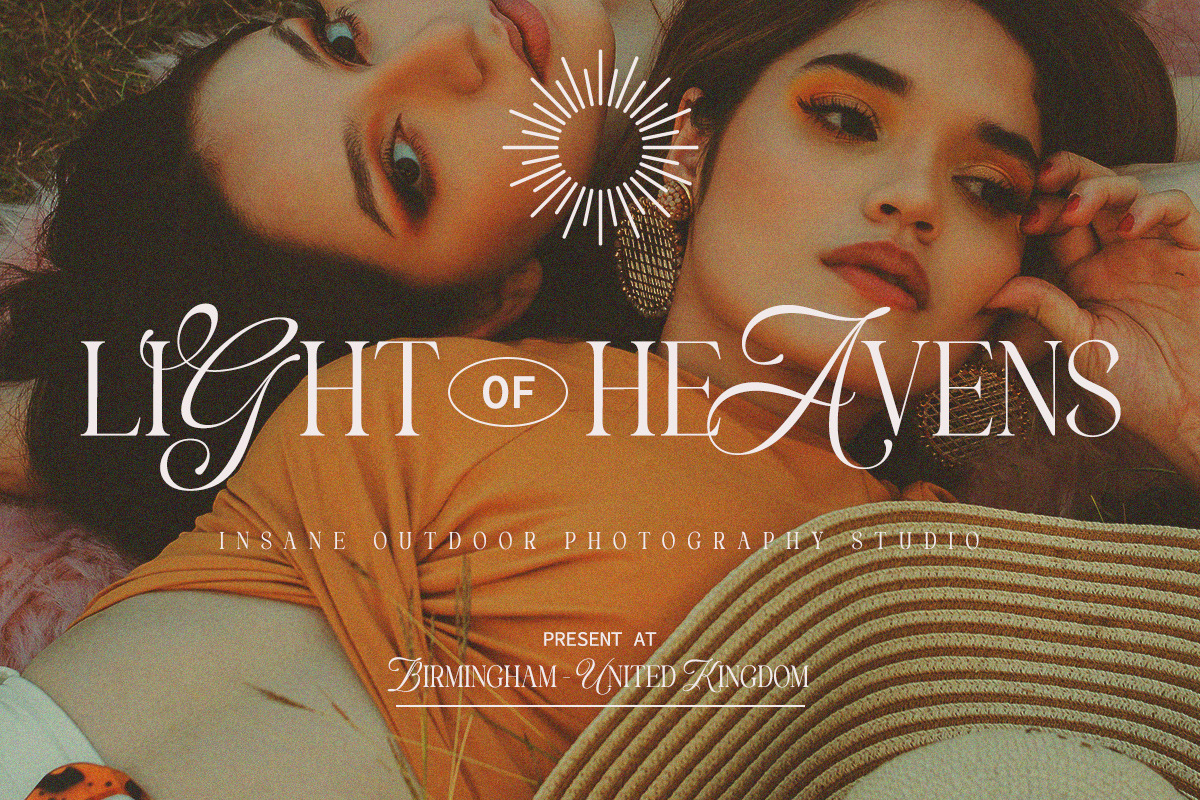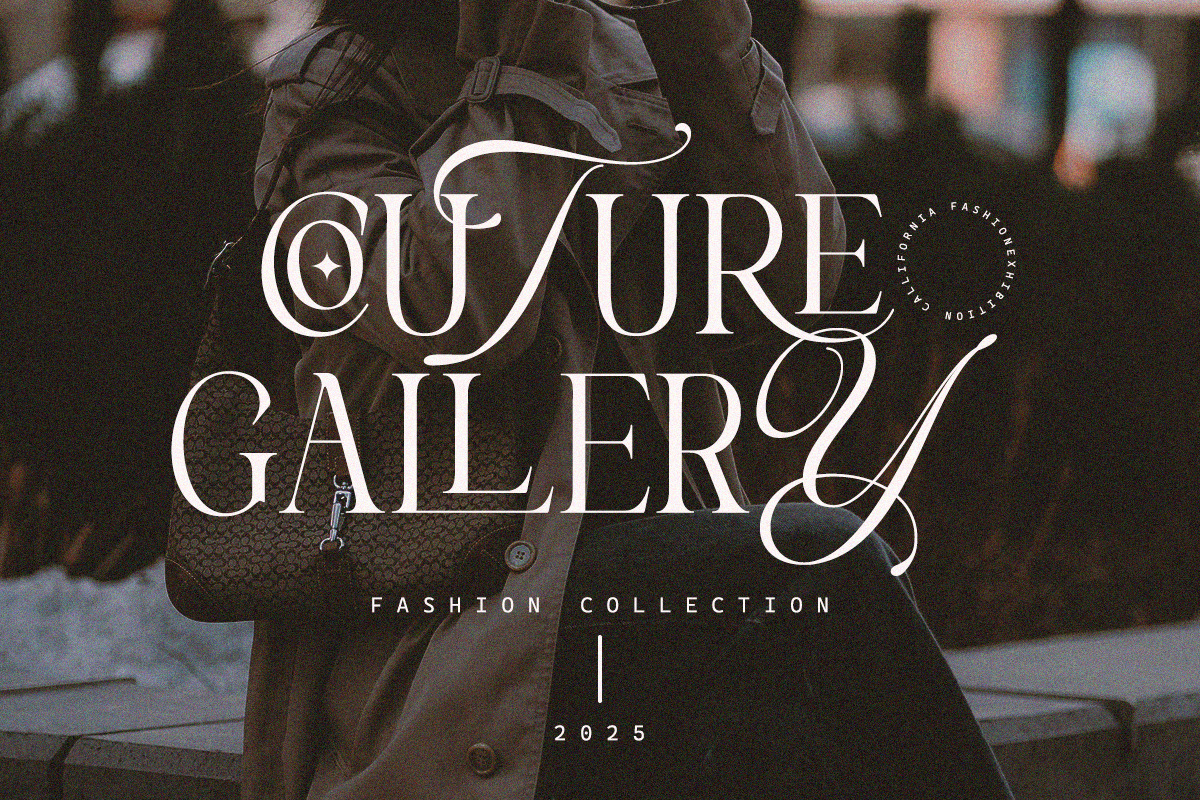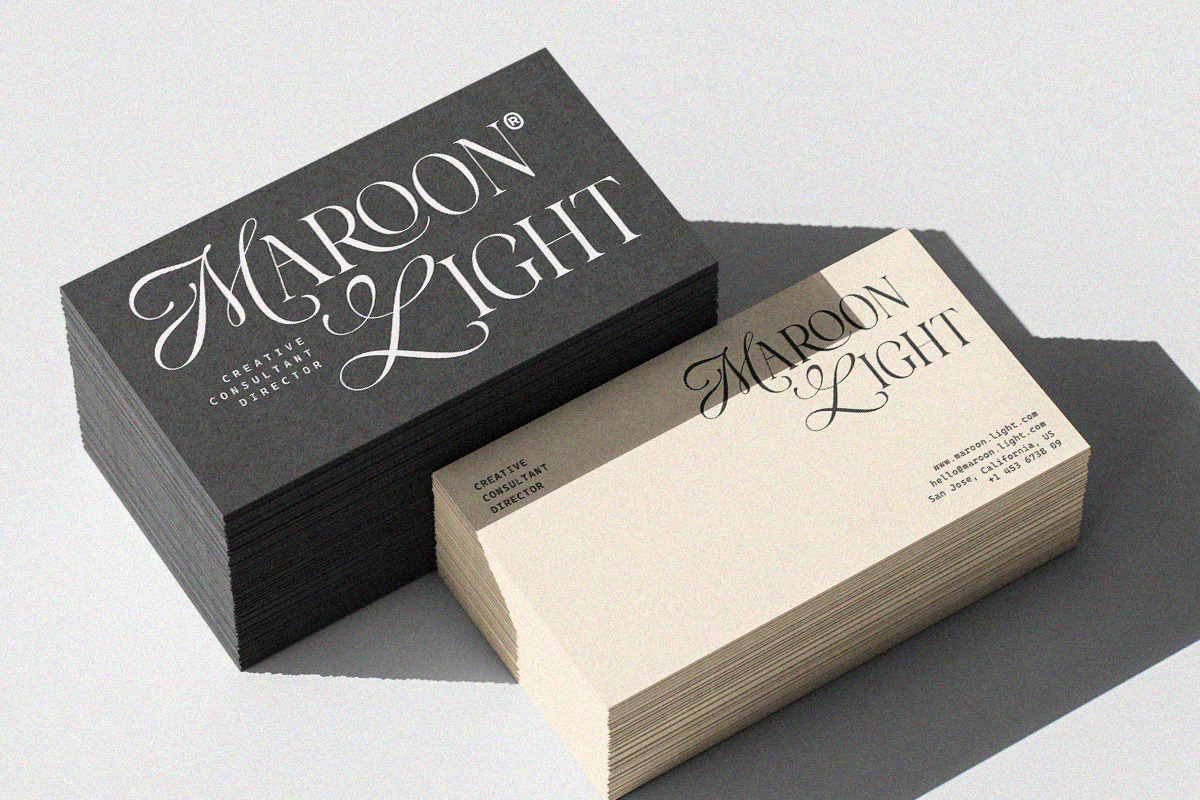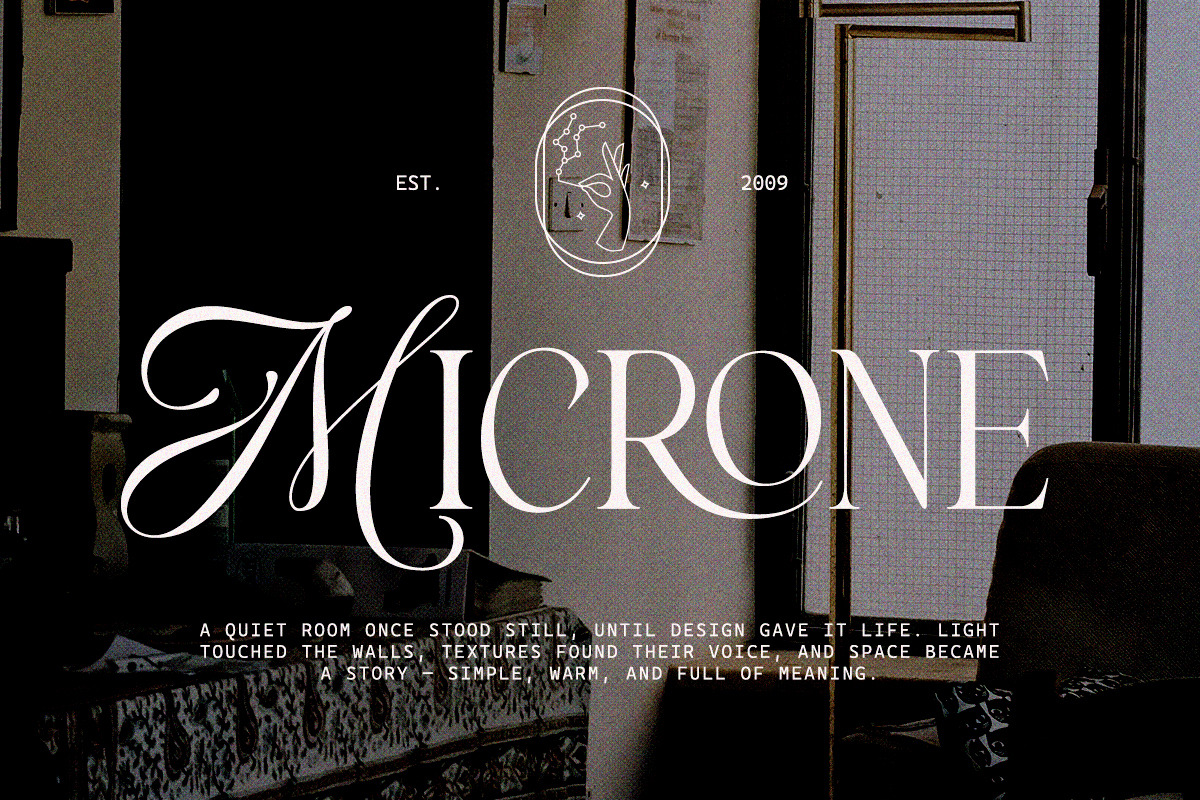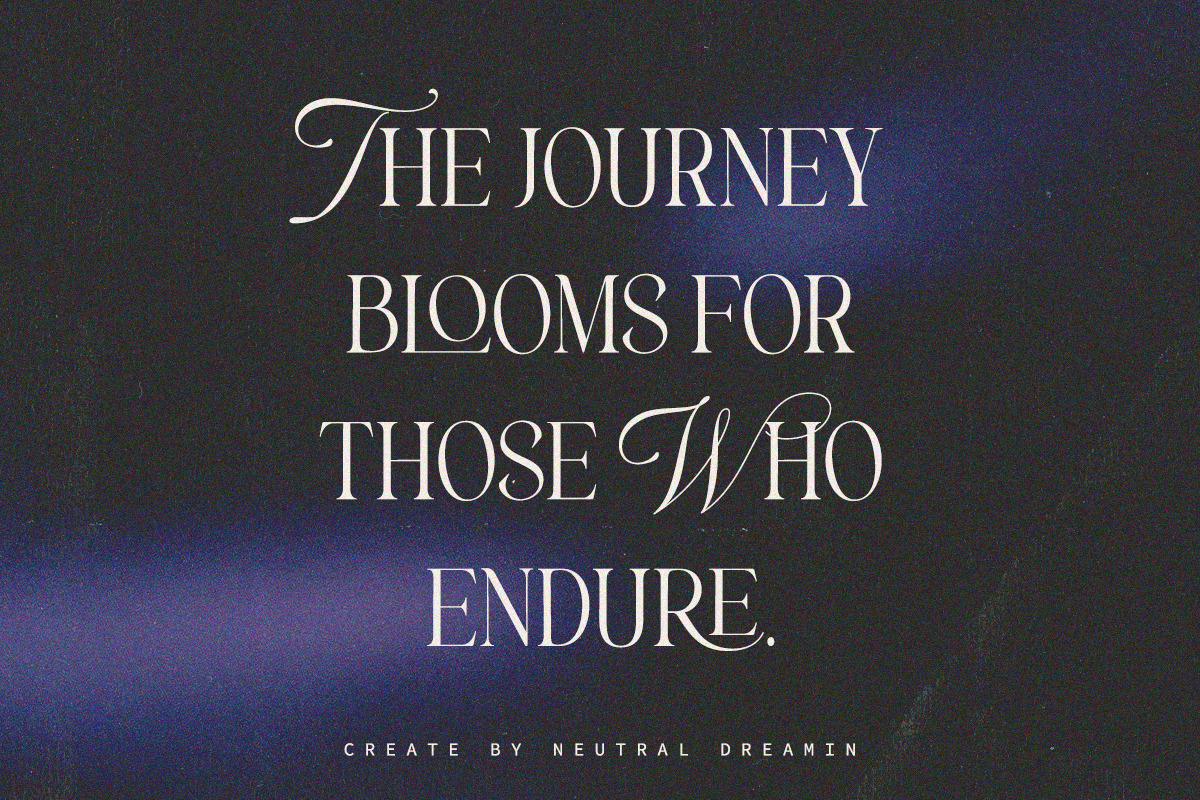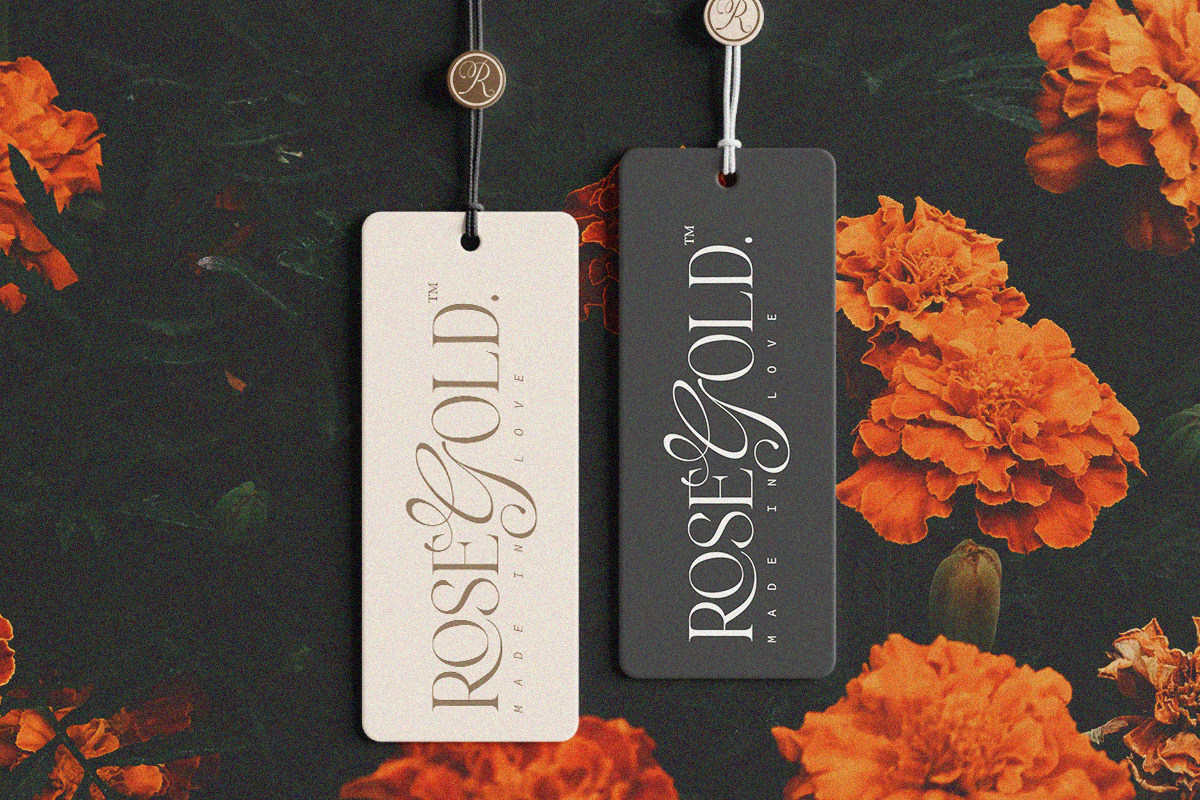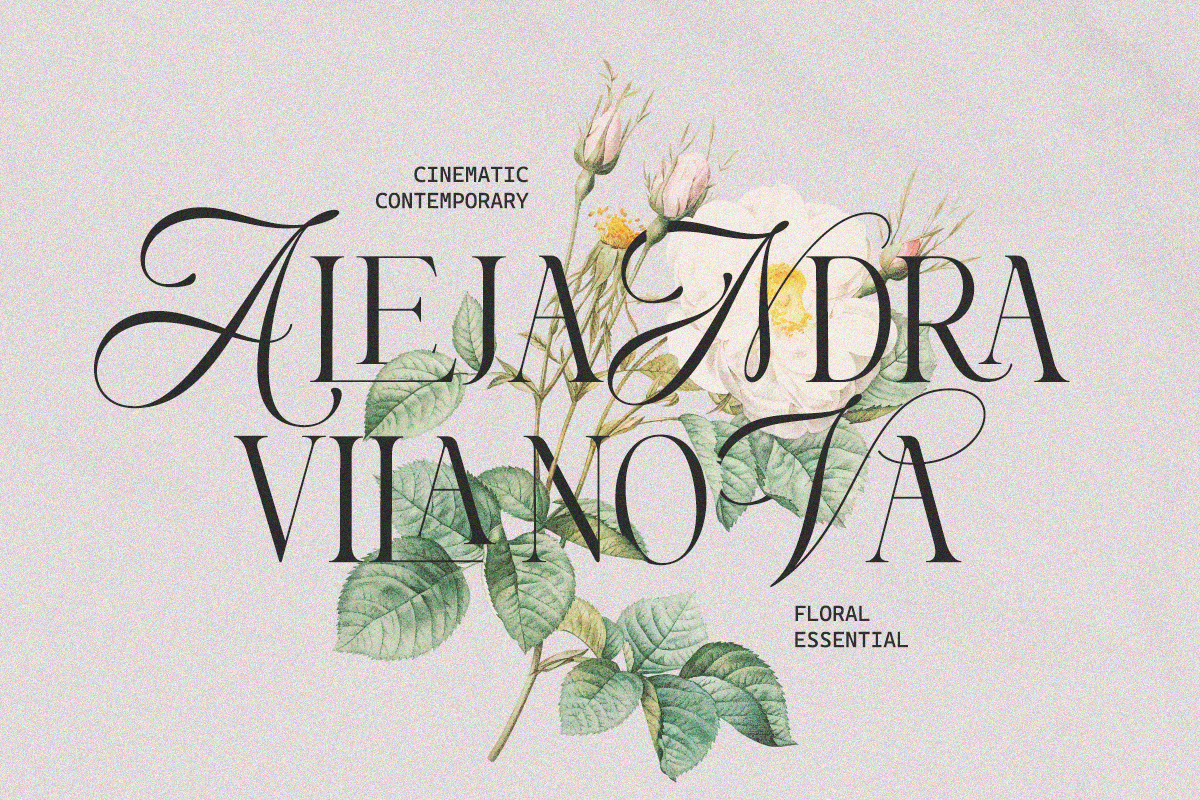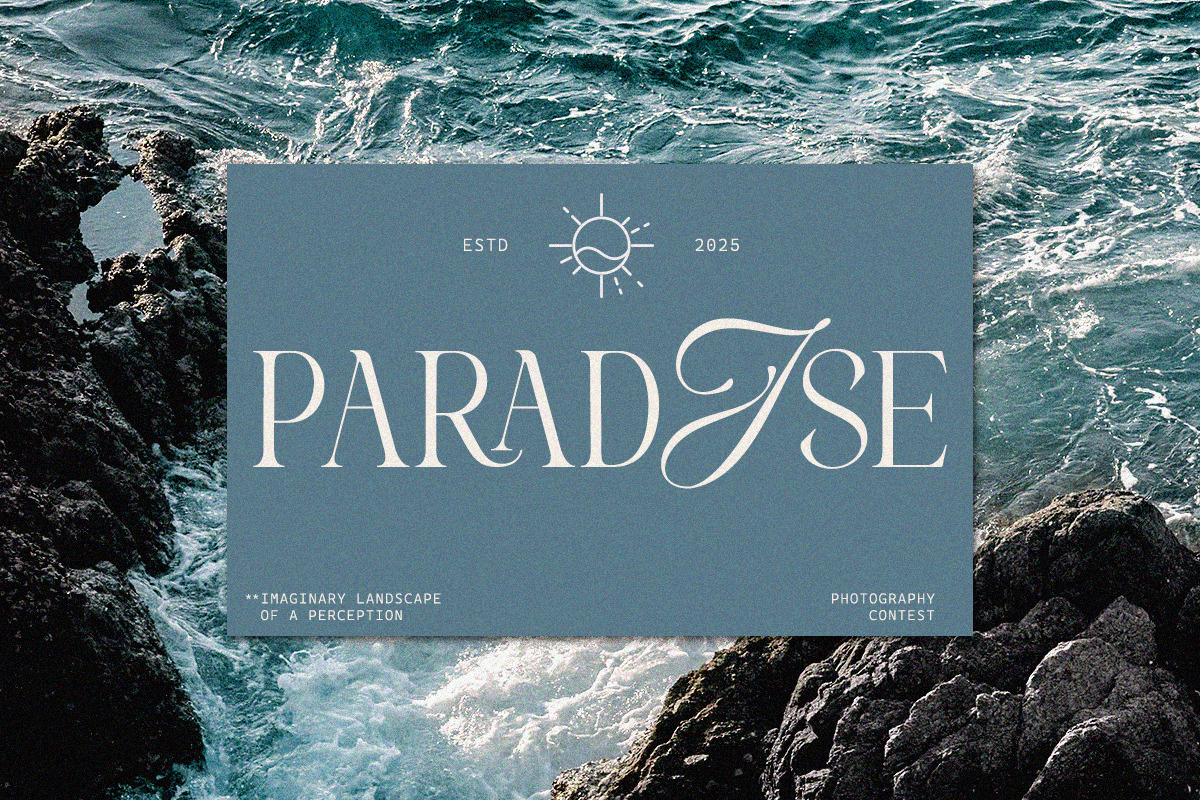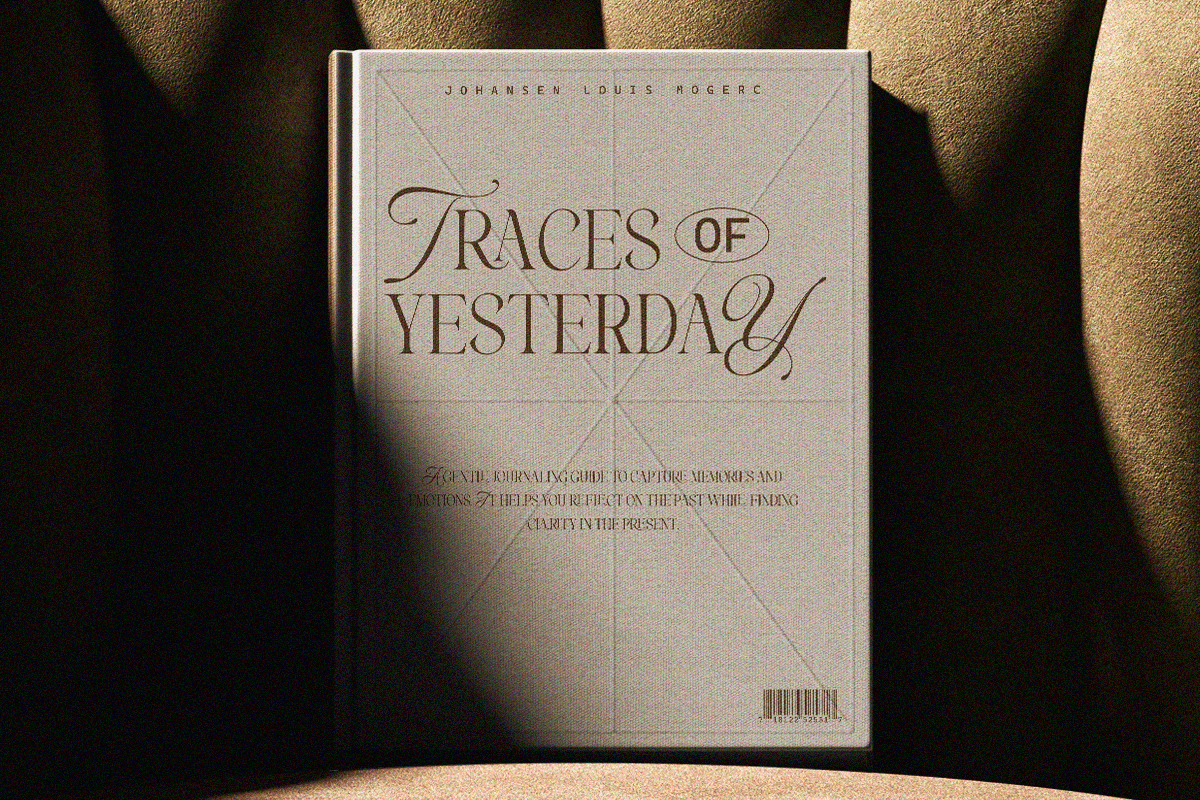
Neutral Dreamin
Neutral Dreamin is a captivating blend of calligraphy and serif, exuding a timeless atmosphere and nostalgic charm that enhances every design. This unique blend brings a touch of sophistication to any project, making it an ideal choice for branding, editorial layouts, and social media visuals. With its versatile aesthetic, Neutral Dreamin enriches your design toolkit, offering endless creative possibilities for refined and stunning results.